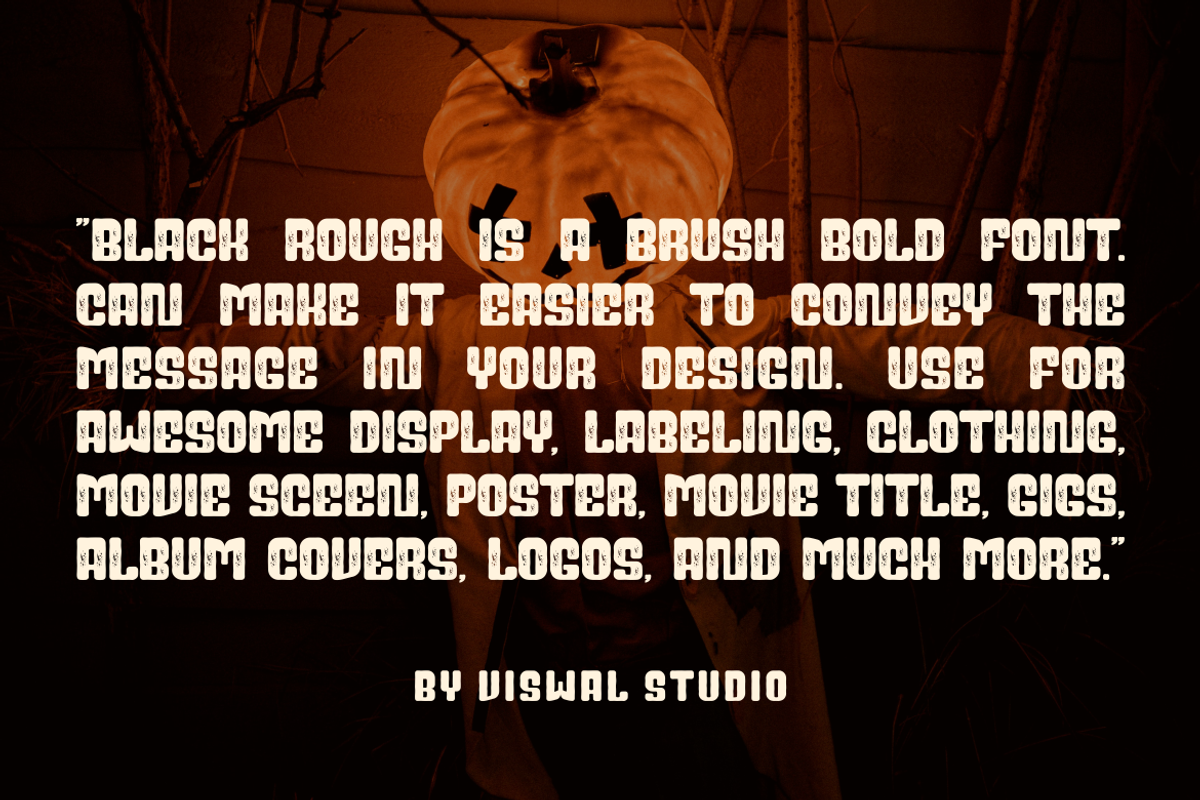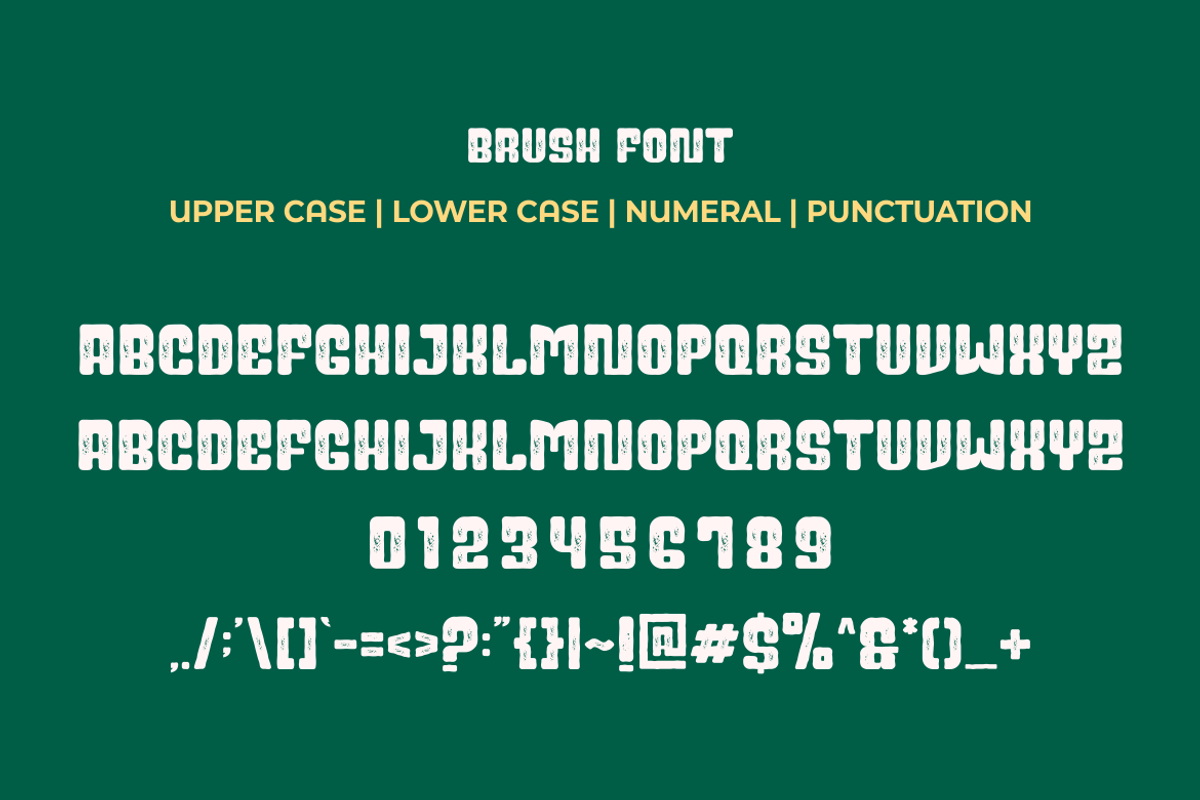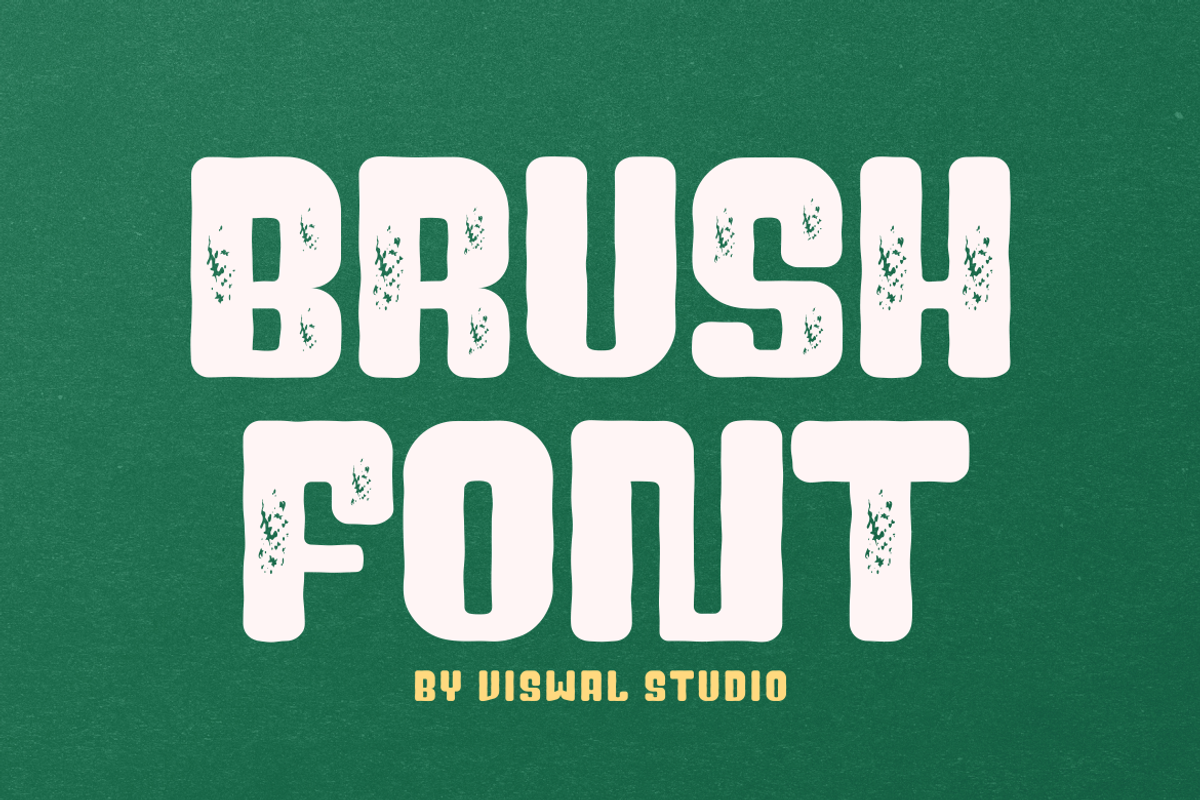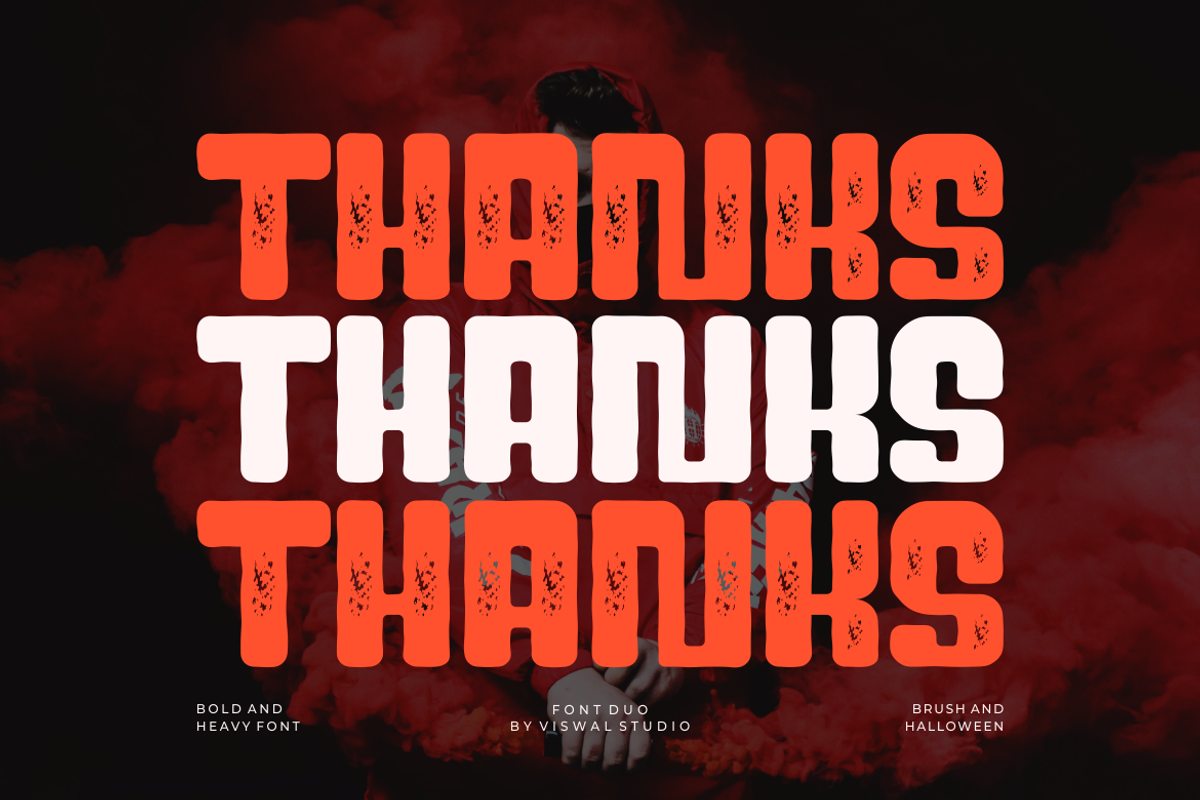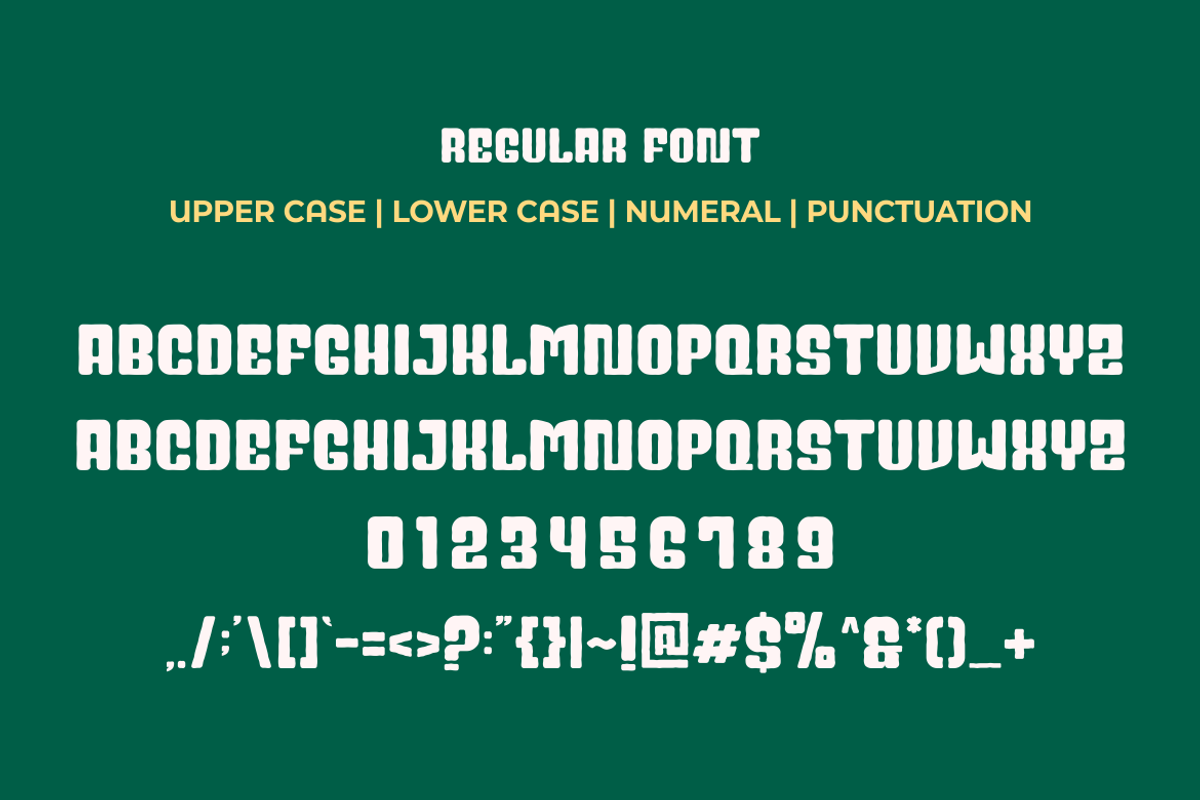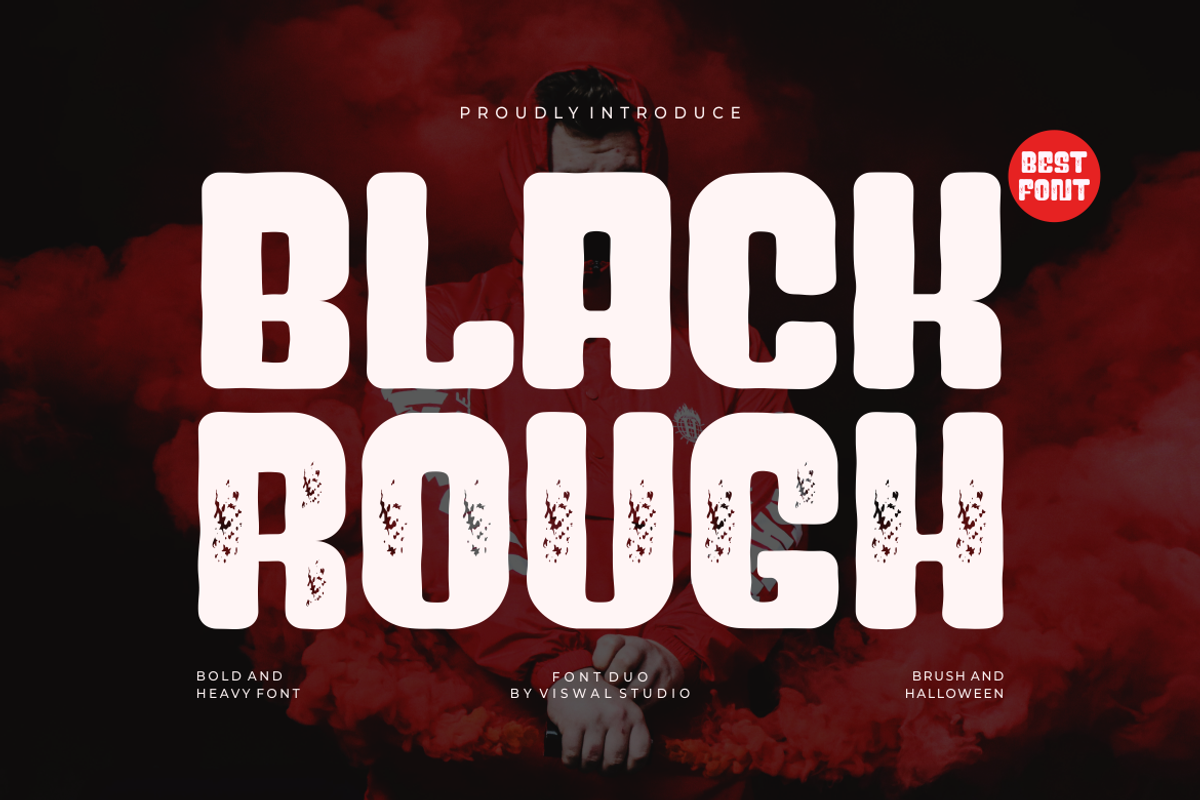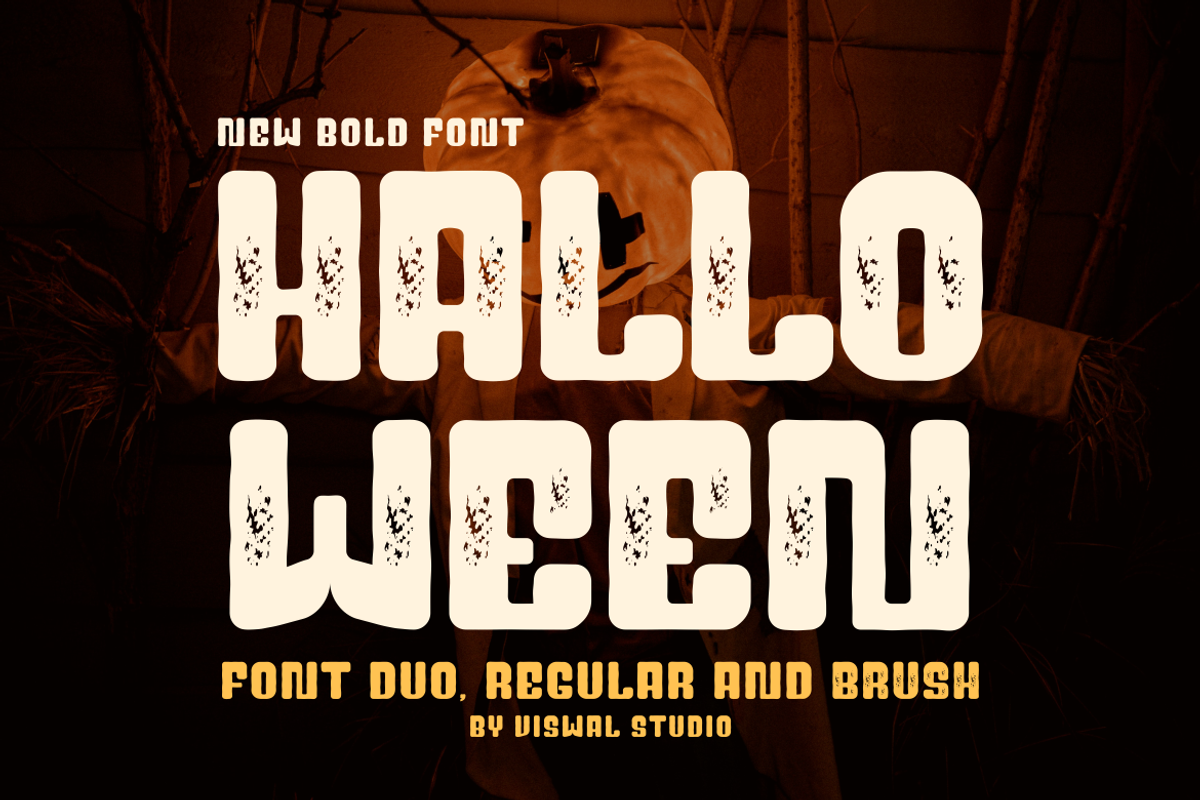
Black Rough - Modern Brush Font
Presenting Black Rough Is A Modern Bold Font.
Can Make It Easier To Convey The Message In Your Design. Font Is Suitable For Logo, Labels, Badge, Branding, Magazine, Poster, Title, Gigs, Covers And Etc. Our Fonts Have Uppercase & Lowercase, Numeral & Punctuation, And Opentype Features. For Amazing Designs You Can Mix With Other Fonts As A Complement.